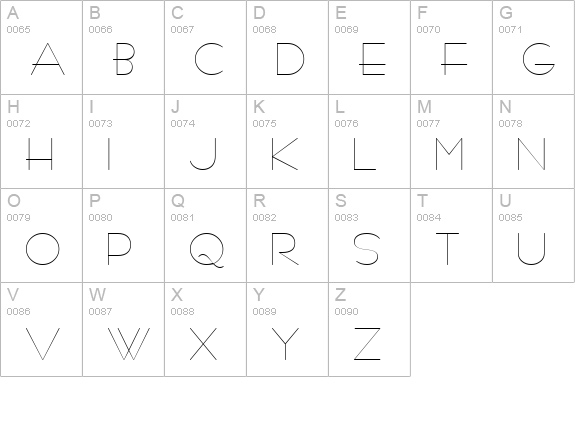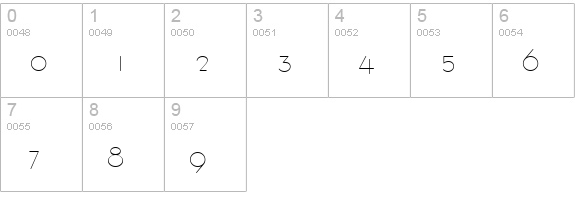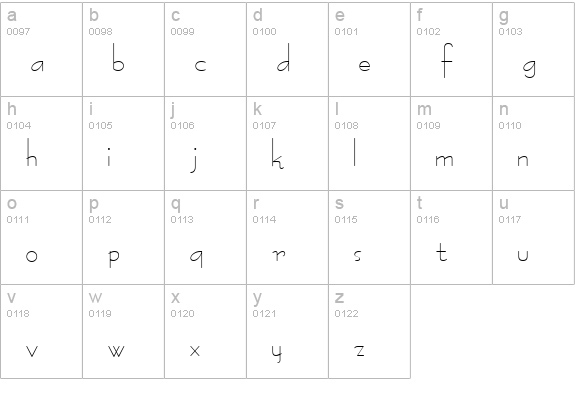
Bernhard Fashion ICG Font Details
Bernhard Fashion ICG is a stylish and elegant font that exudes sophistication and modernity. Its sleek and clean lines make it perfect for creating eye-catching designs, whether for print or digital media. This versatile font is ideal for use in a wide range of projects, from branding and advertising to invitations and social media graphics. What sets Bernhard Fashion ICG apart is its unique blend of classic and contemporary elements, making it a timeless choice for designers looking to make a statement. The font's well-balanced proportions and distinctive letterforms ensure that it stands out from the crowd while maintaining a sense of refinement and professionalism. Best of all, Bernhard Fashion ICG is available for free download at FontsMarket.com, making it accessible to designers of all skill levels. Whether you're working on a personal project or a client commission, this font is sure to add a touch of elegance and flair to your designs. Upgrade your typography game with Bernhard Fashion ICG and elevate your creations to the next level.